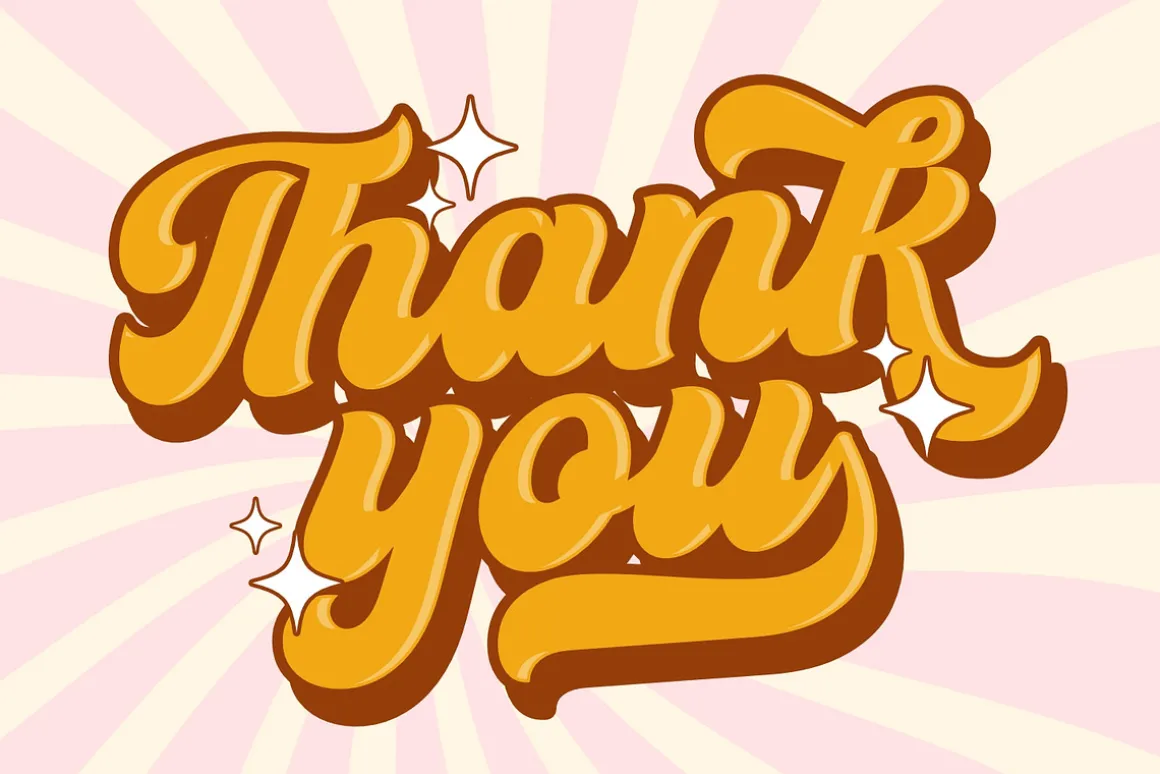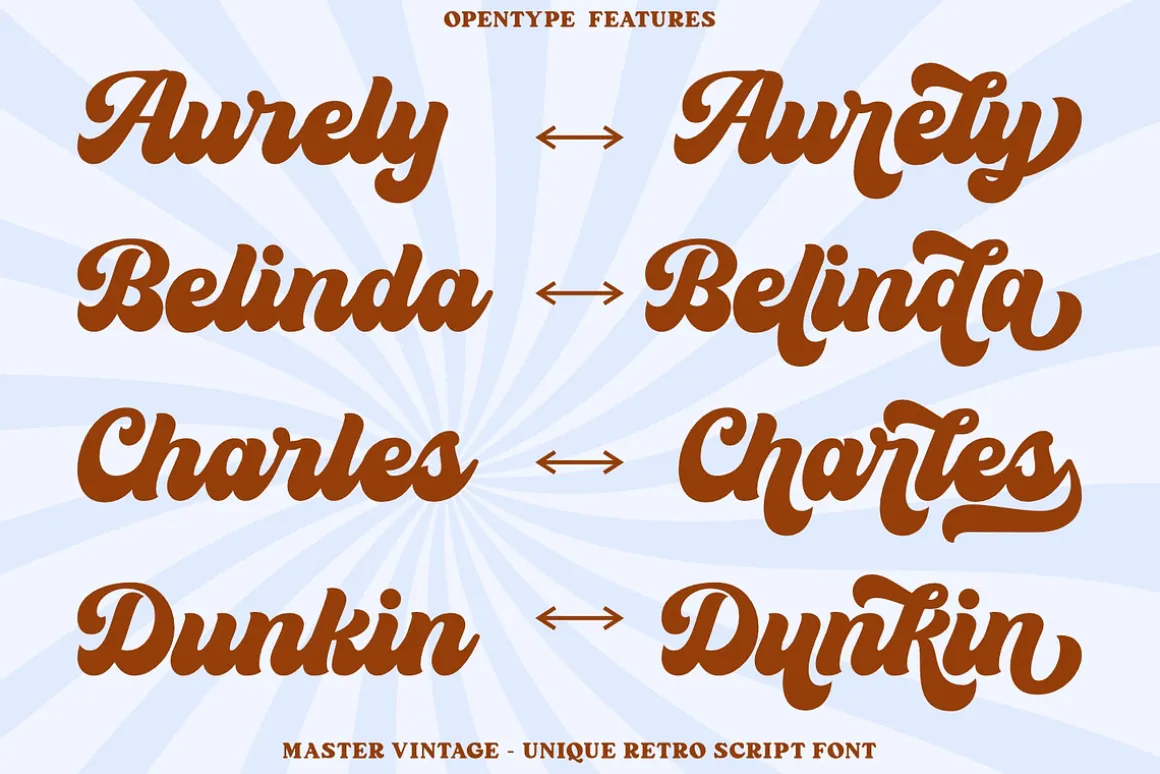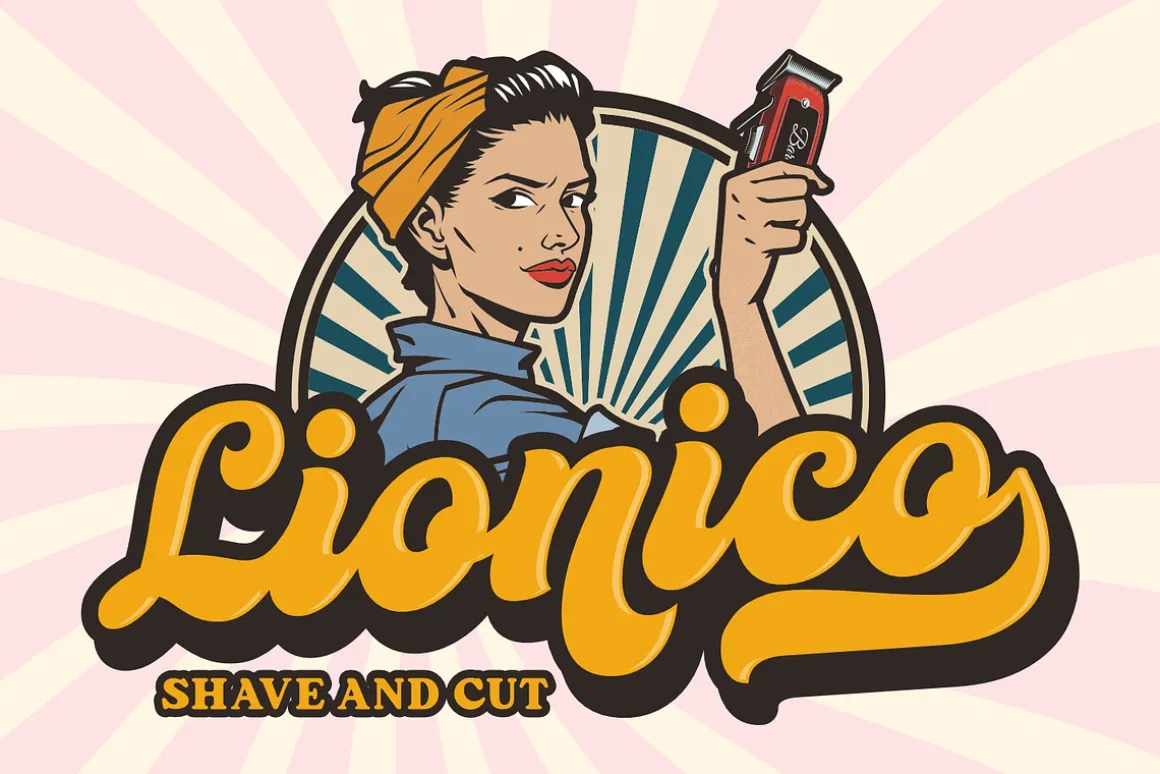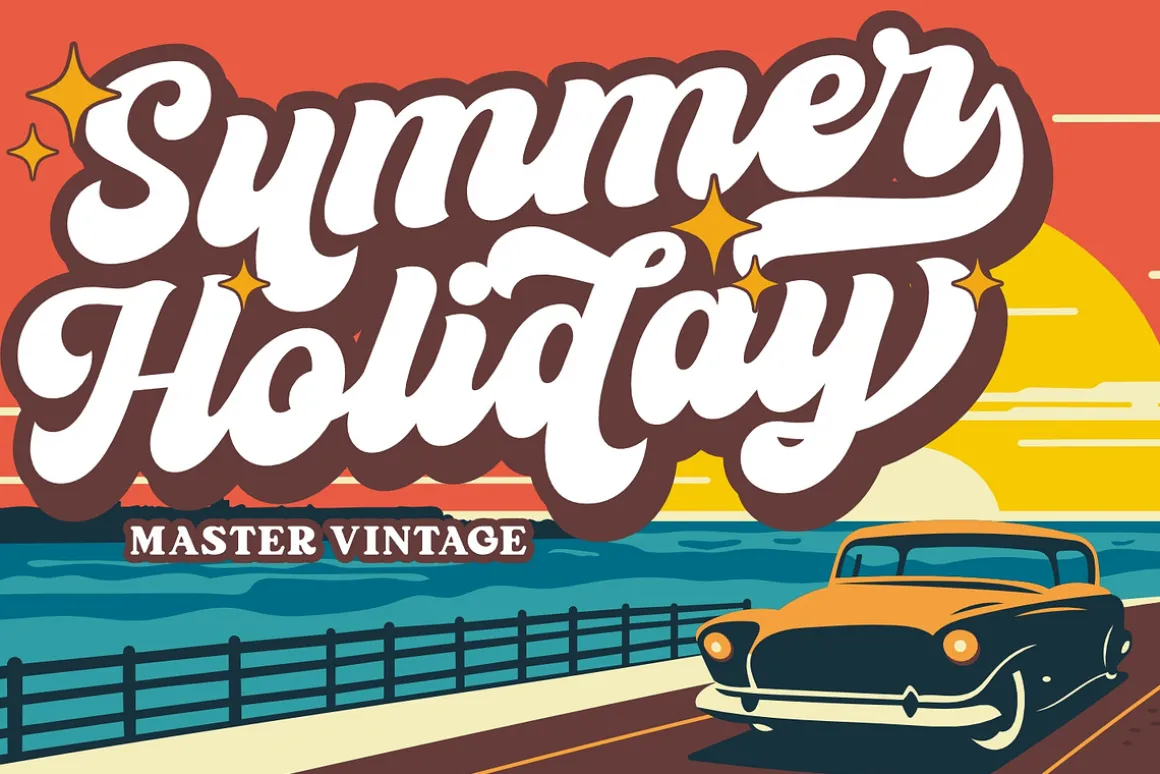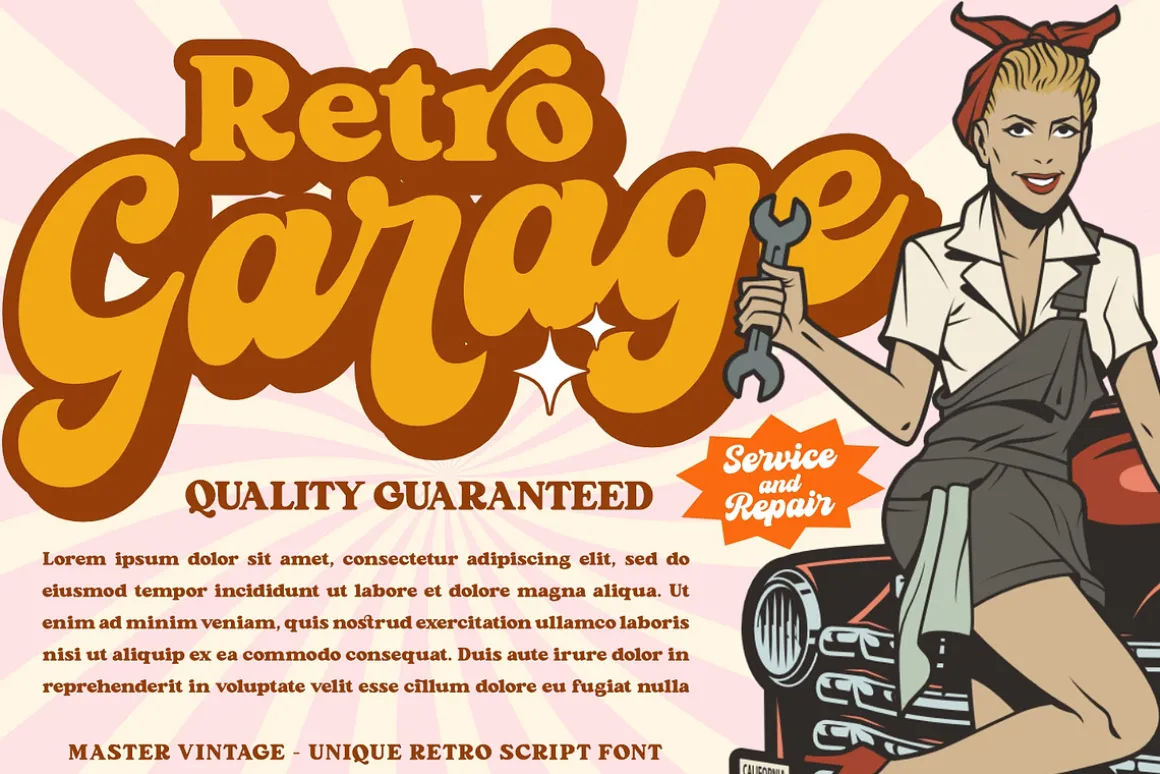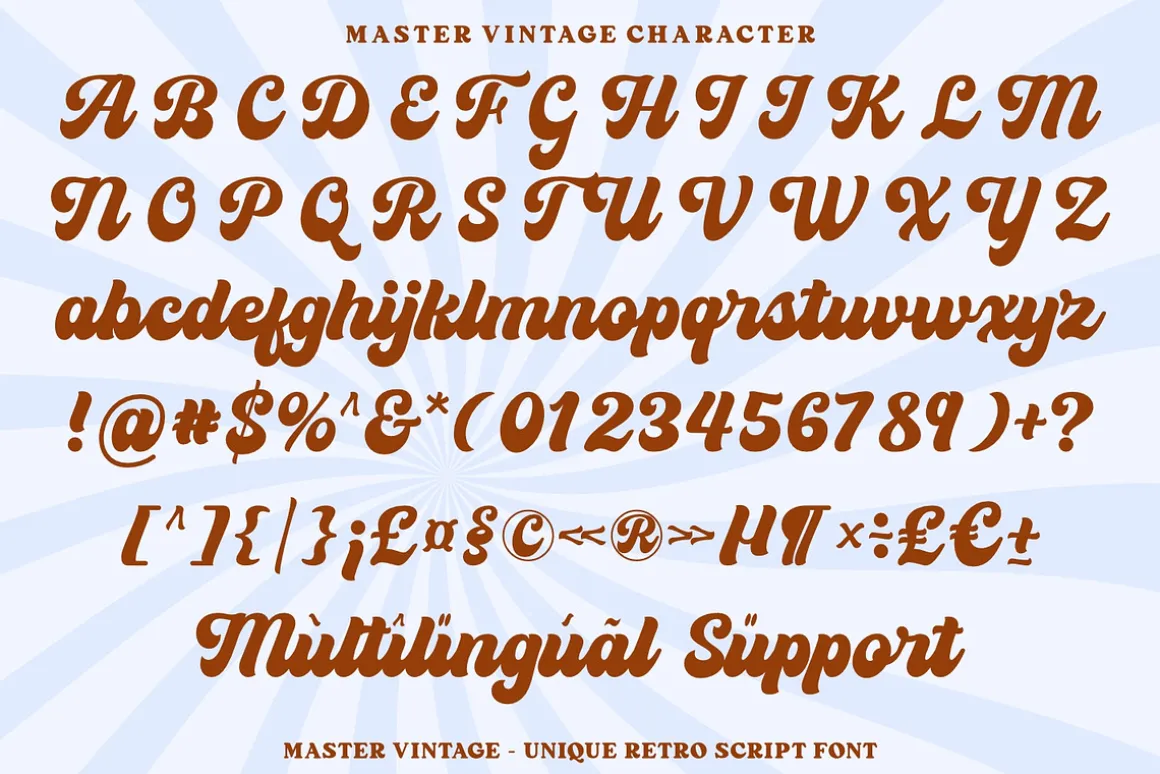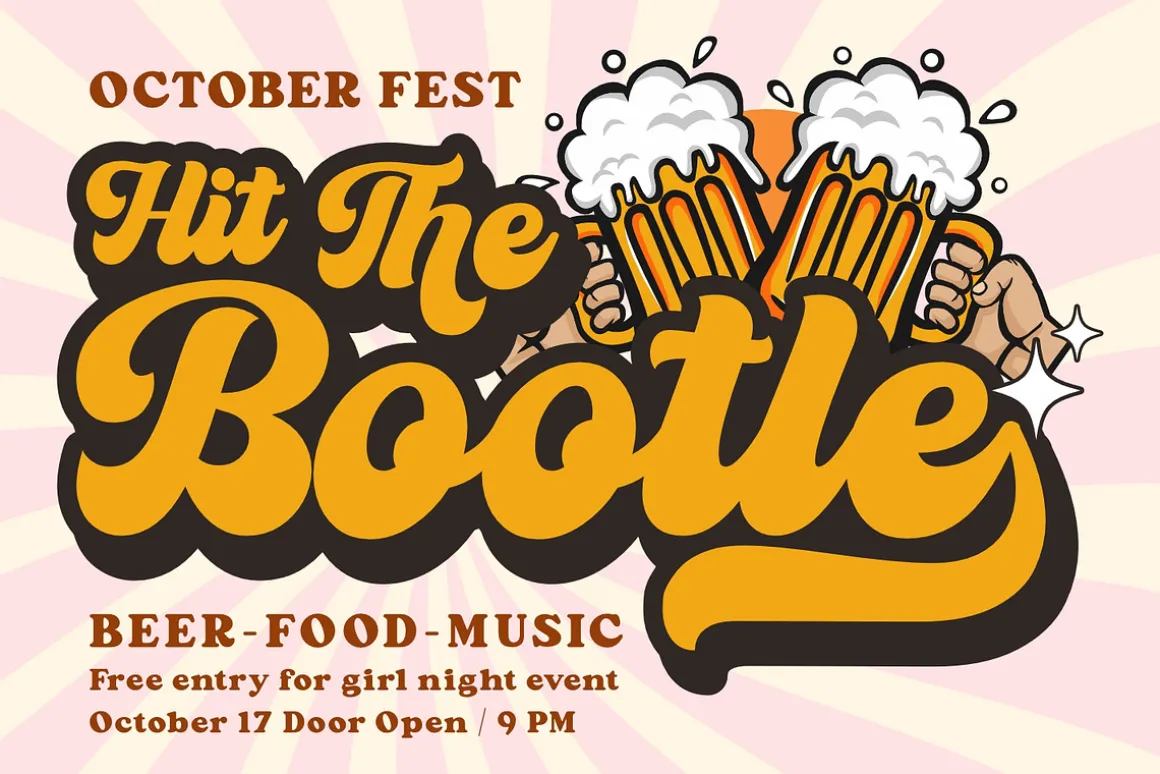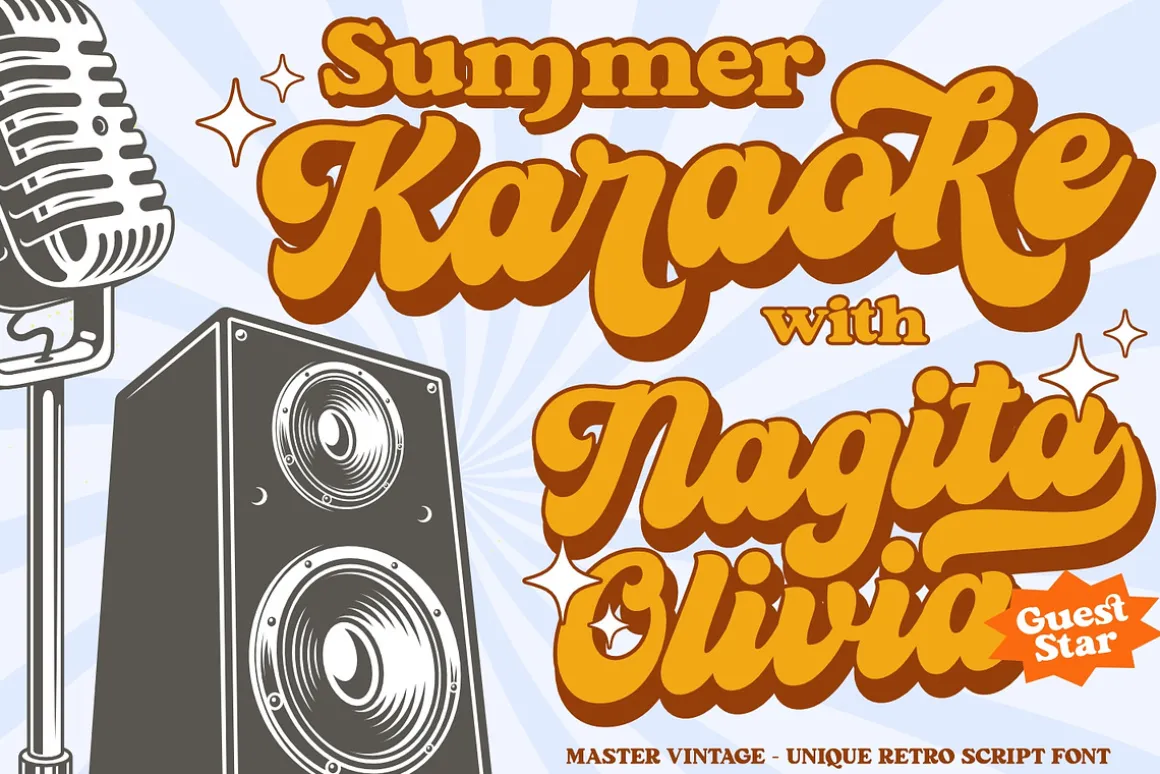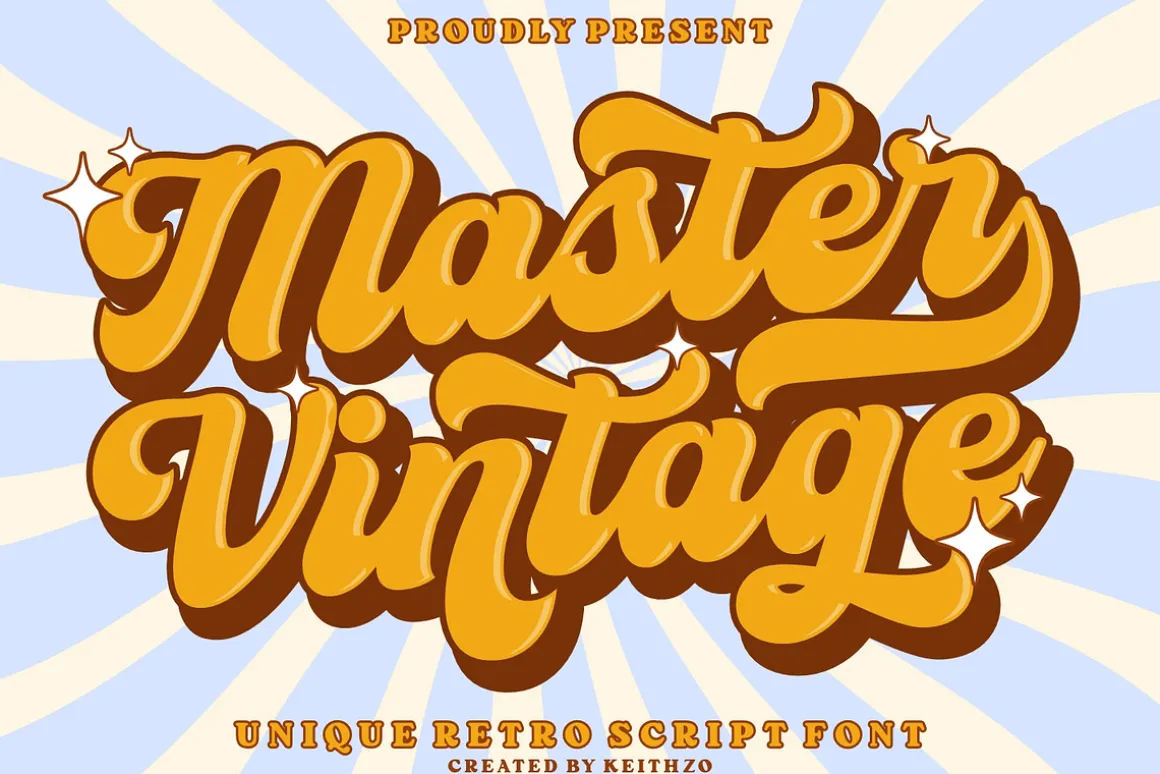
Master Vintage is a cool and retro script display font that takes you back in time. With its bold strokes and vintage-inspired letterforms, it captures the essence of the past while adding a modern twist. Perfect for branding, packaging, or poster designs, Master Vintage brings a touch of nostalgia and authenticity to your creative projects. Get ready to make a statement with this timeless font.
- Numerals & Punctuation
- Stylistic and Ligatures
- Accented characters
- Multiple Languages Supported